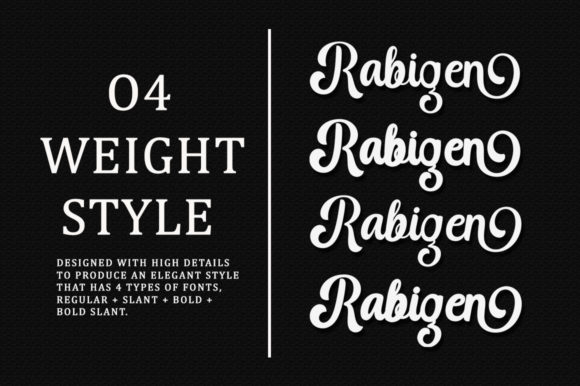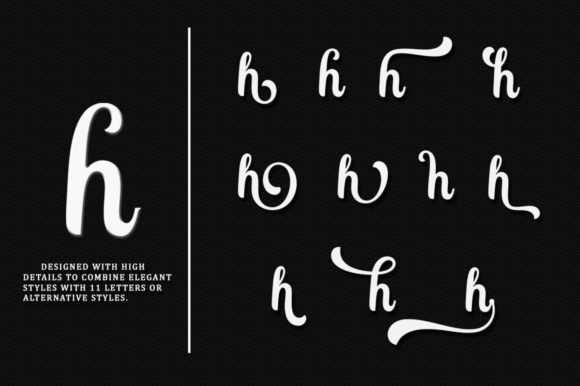
Village Rabigen Font
db-ku.com - Script & Handwritten -- Village Rabigen is one of the elegant calligraphy fonts that comes with a very beautiful character change, a kind of classic copper decorative script with a modern touch, designed with high detail to present an elegant style.